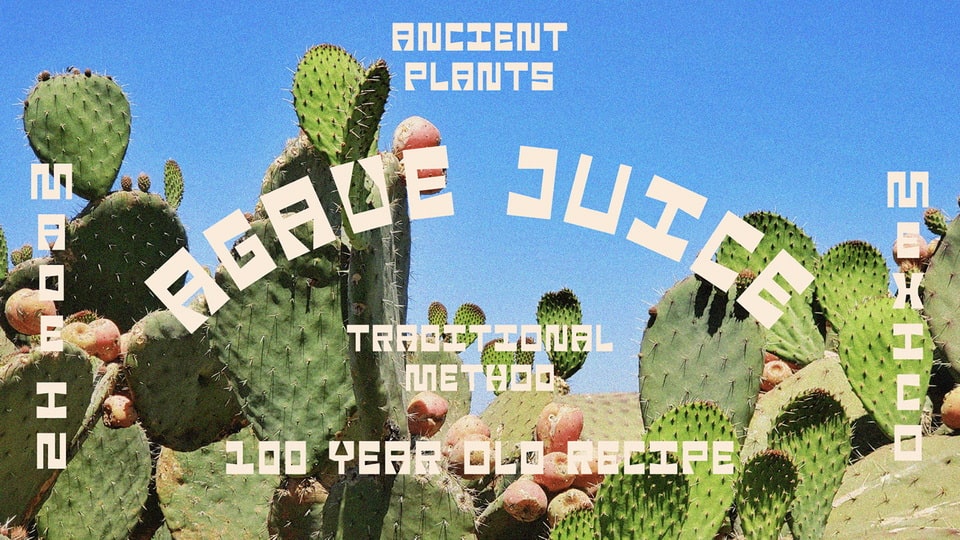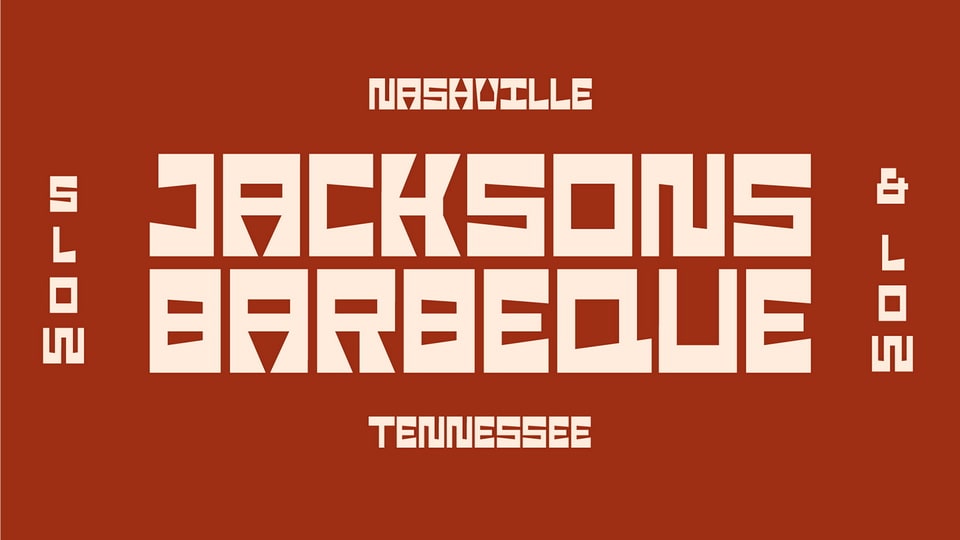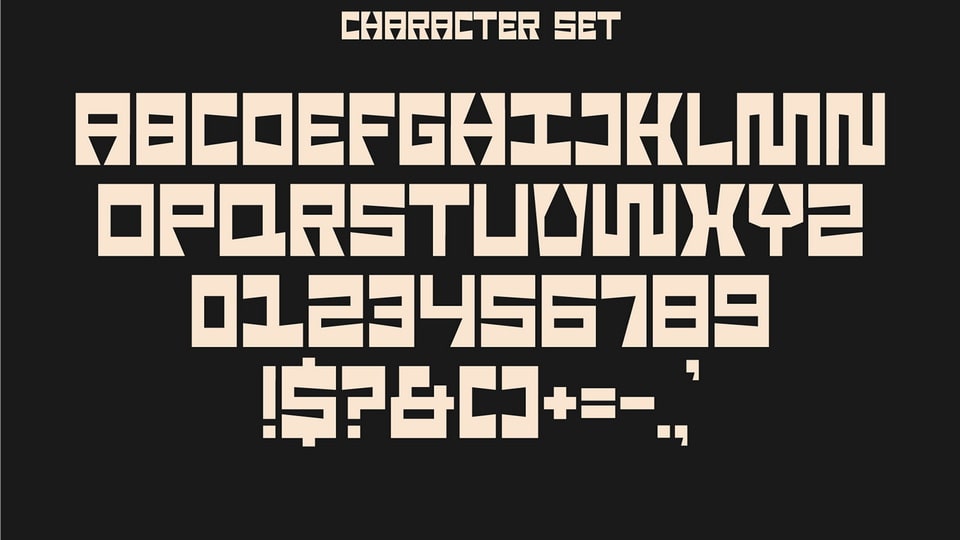
Valiant is a bold and unconventional display typeface that stands out with its geometric forms, sharp angles, and high contrast. Designed for maximum impact, it combines futuristic energy with brutalist undertones, making it perfect for posters, headlines, album art, and experimental design work.
Each letterform in Valiant is full of character—featuring high contrast between solid blocks and carved-out spaces—creating a rhythm that’s as visually striking as it is unique. Its bold styling demands attention while still maintaining a structured balance.